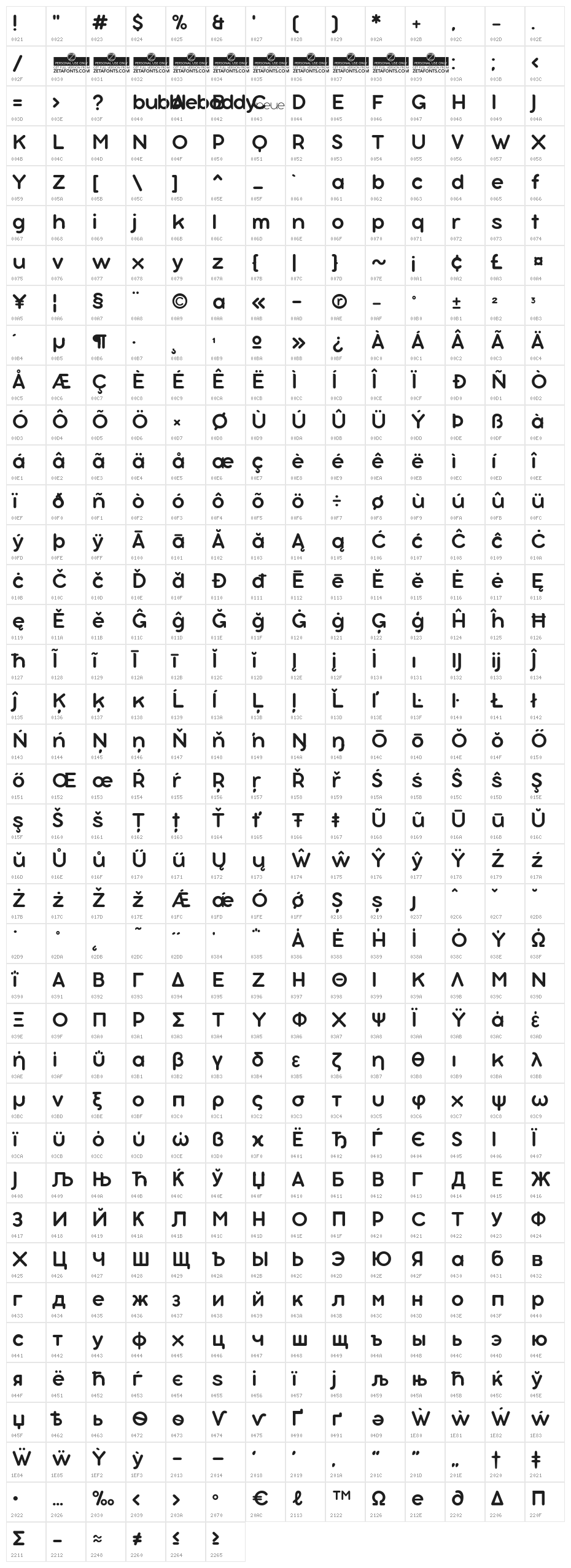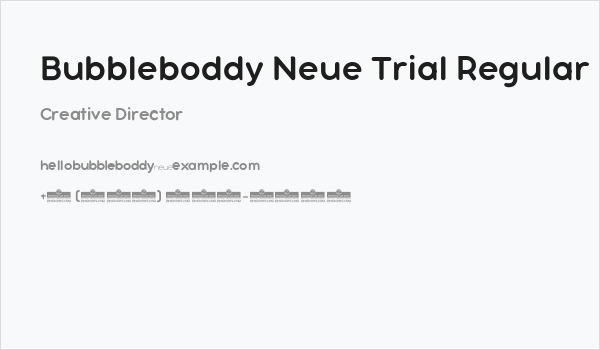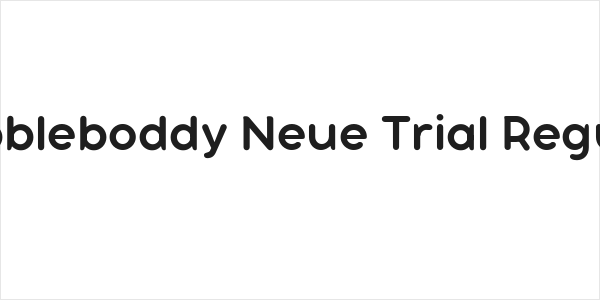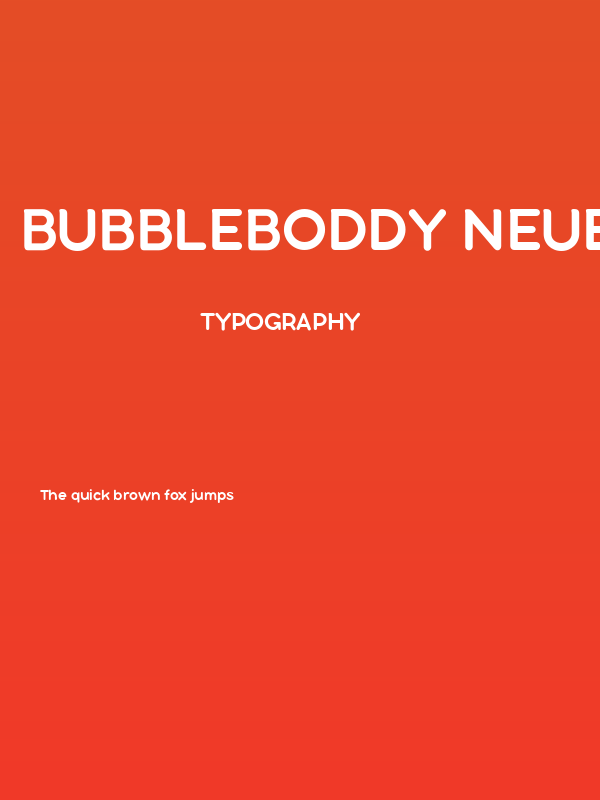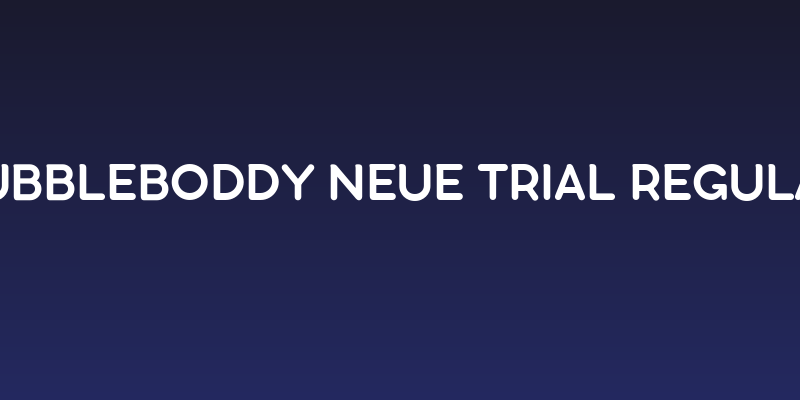
Bubbleboddy Neue Trial Regular Font
Bubbleboddy Neue Trial Regular Description
This font features a playful and rounded design, characterized by its smooth curves and friendly appearance. The letters are bold and evenly spaced, providing a clean and modern look. The uppercase and lowercase characters maintain a consistent style, with rounded edges that give a soft and approachable feel. The numerals and special characters are designed to match the overall aesthetic, ensuring uniformity across all text. This font is versatile and can be used in various design projects that require a touch of whimsy and modernity.
| Use Case | Headlines, Logos, Branding |
| Proposed Projects | Ideal for children's books, playful branding, casual invitations, and modern web design. |